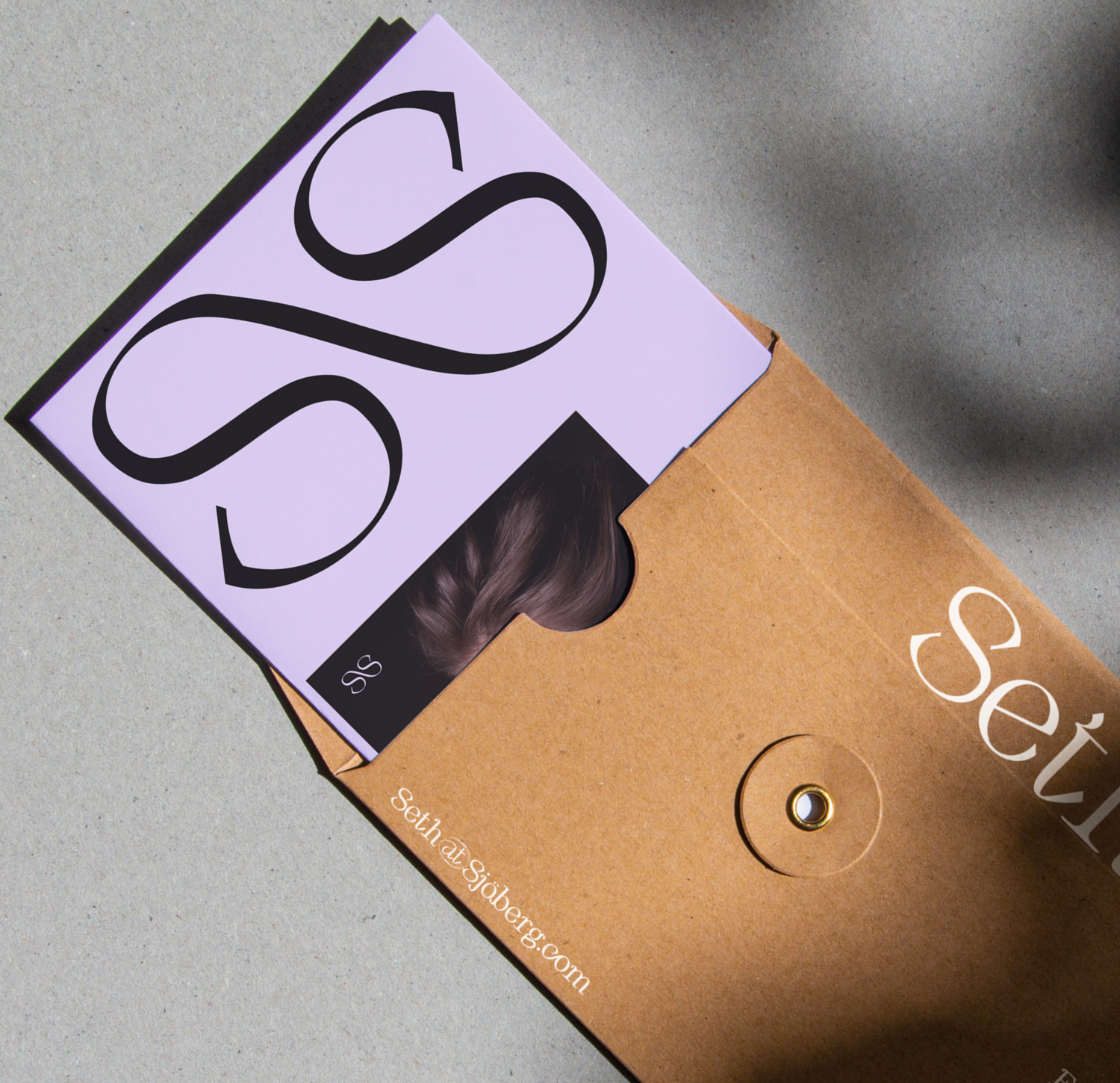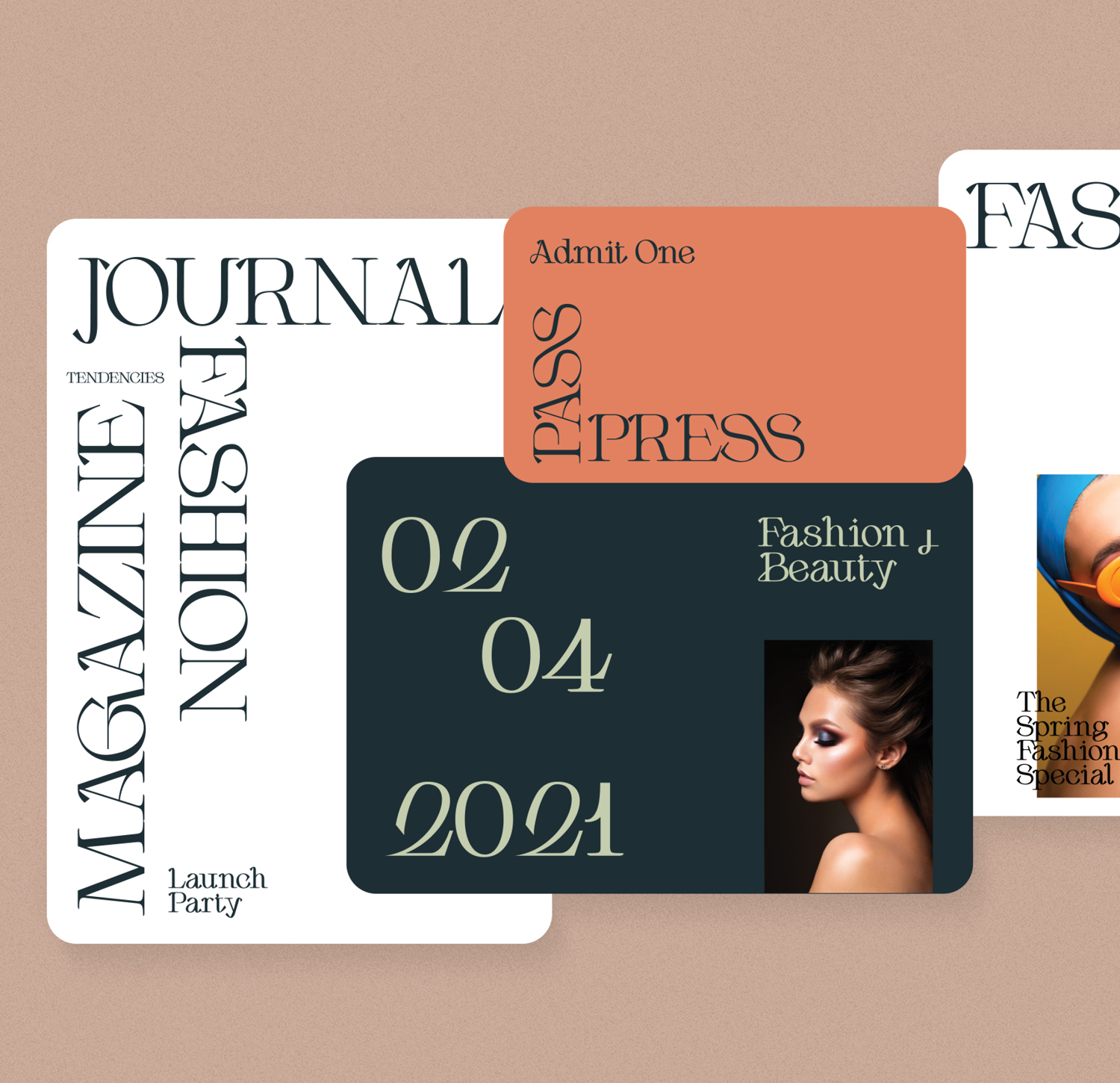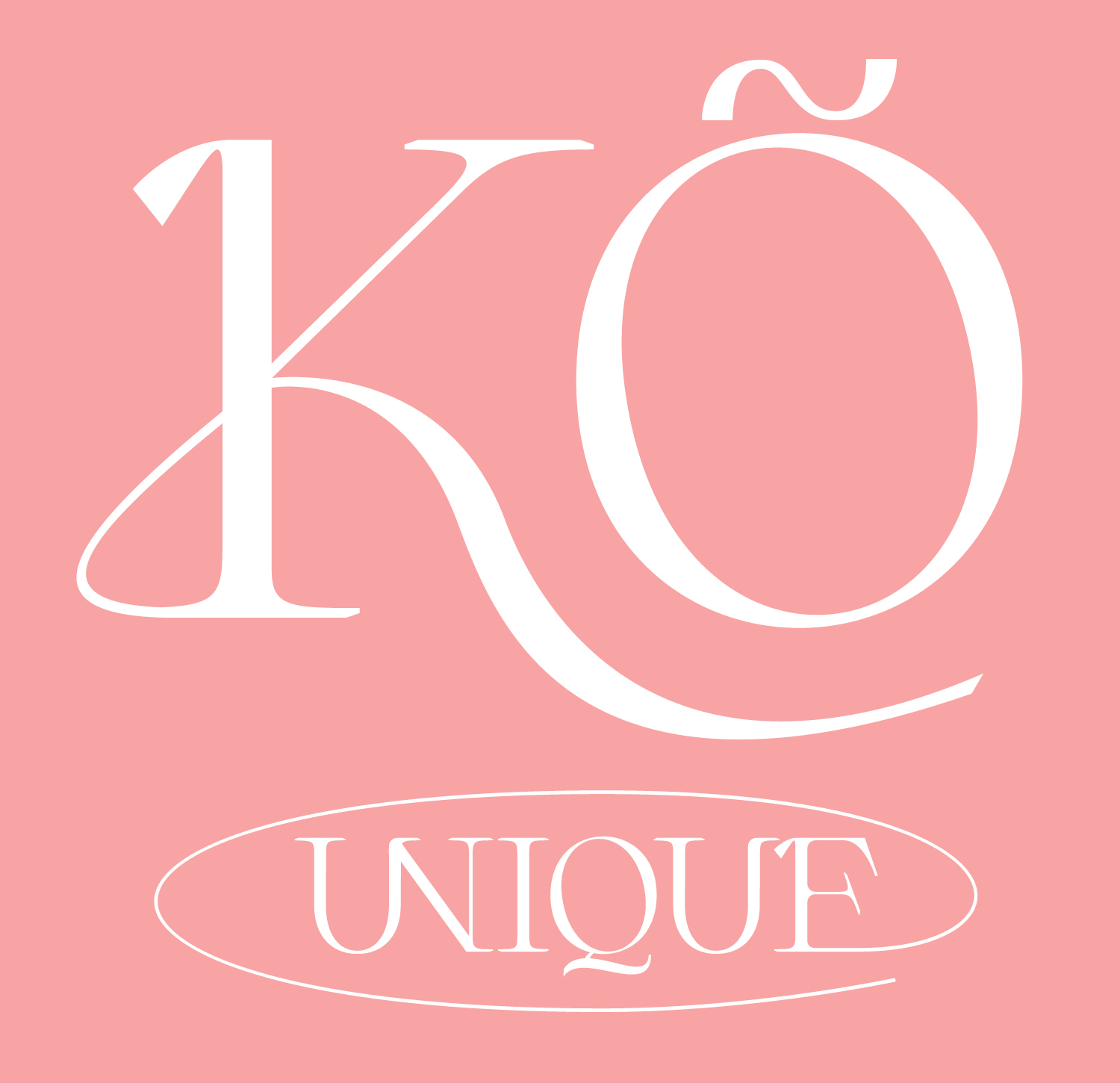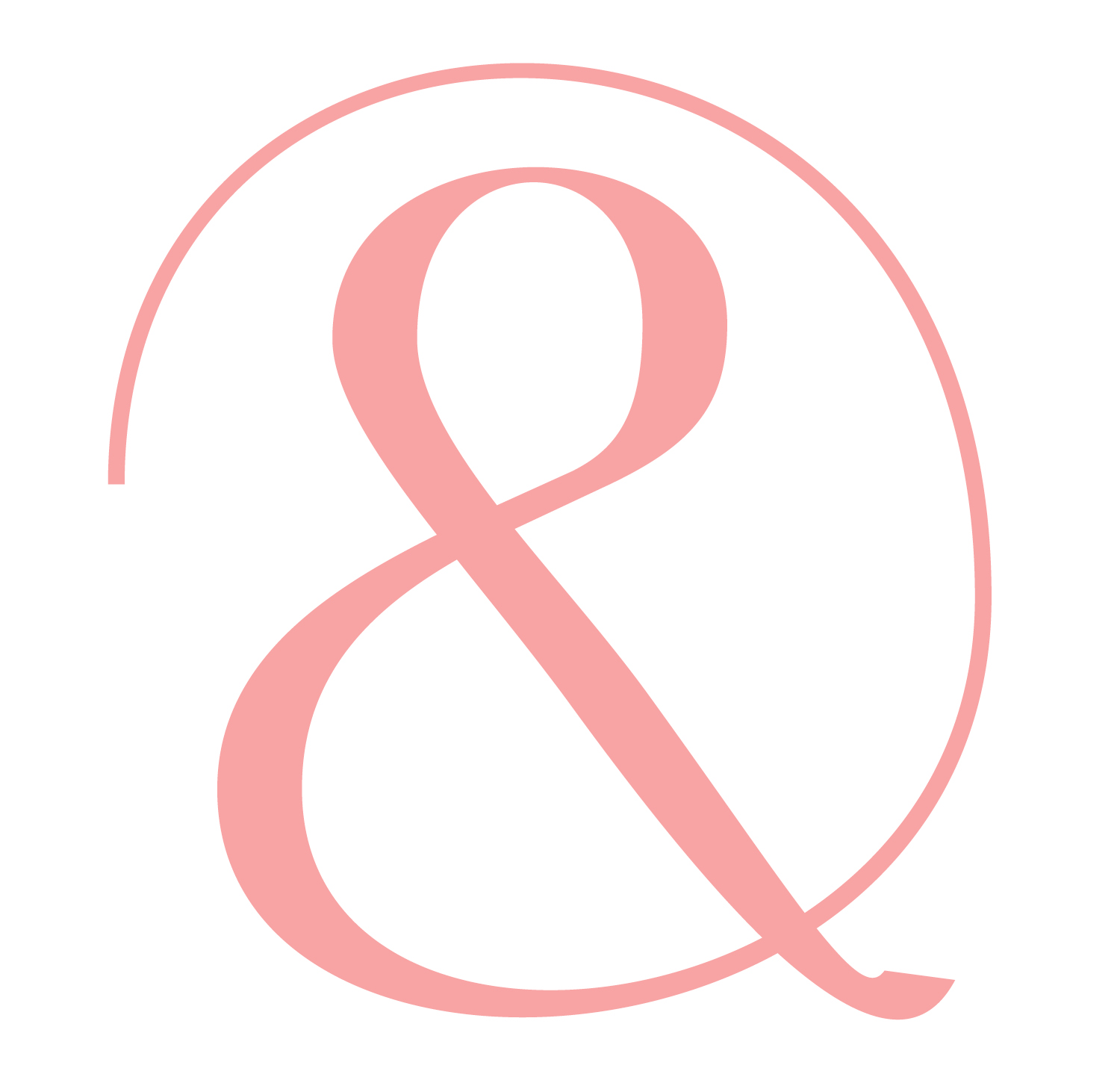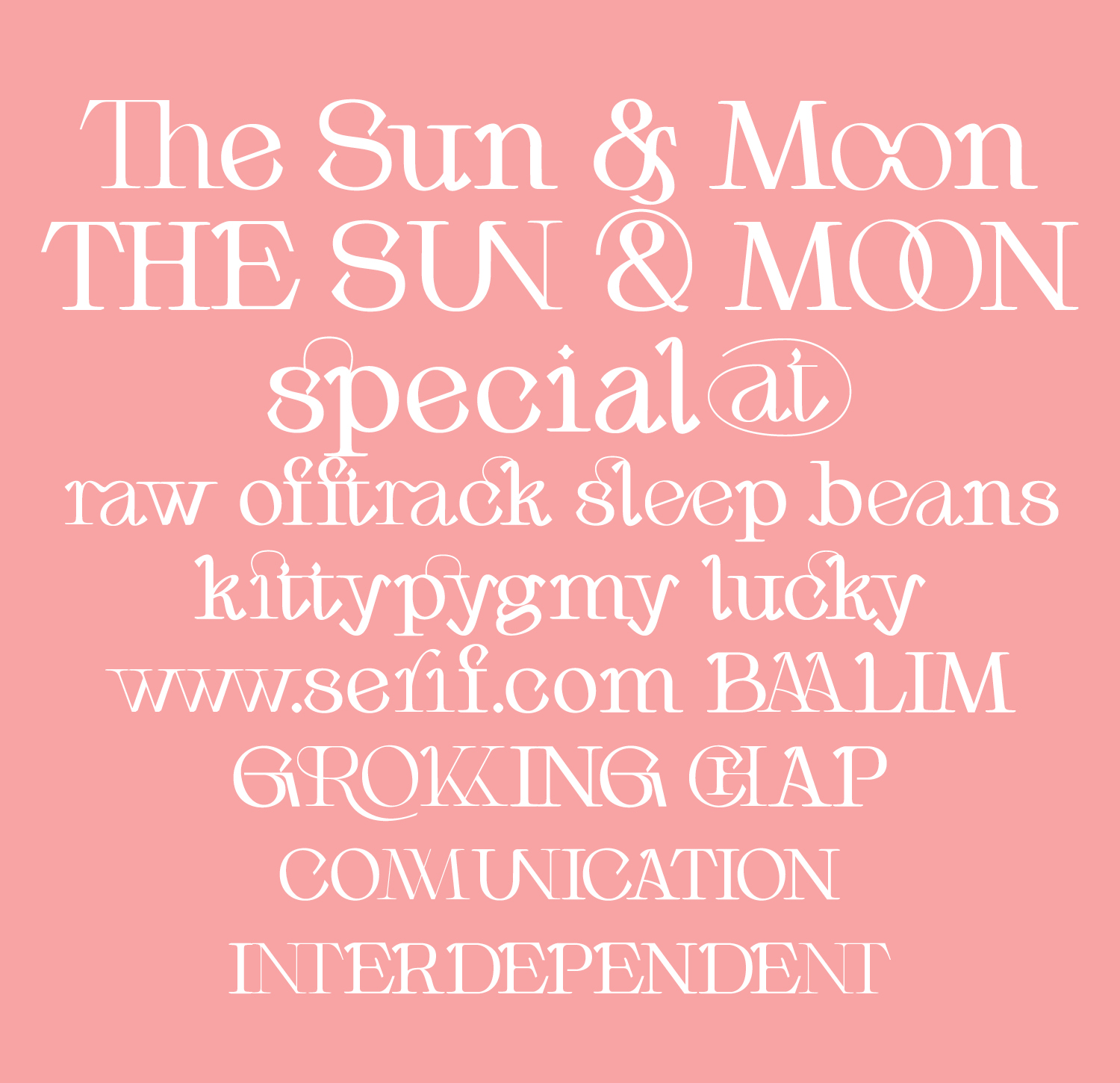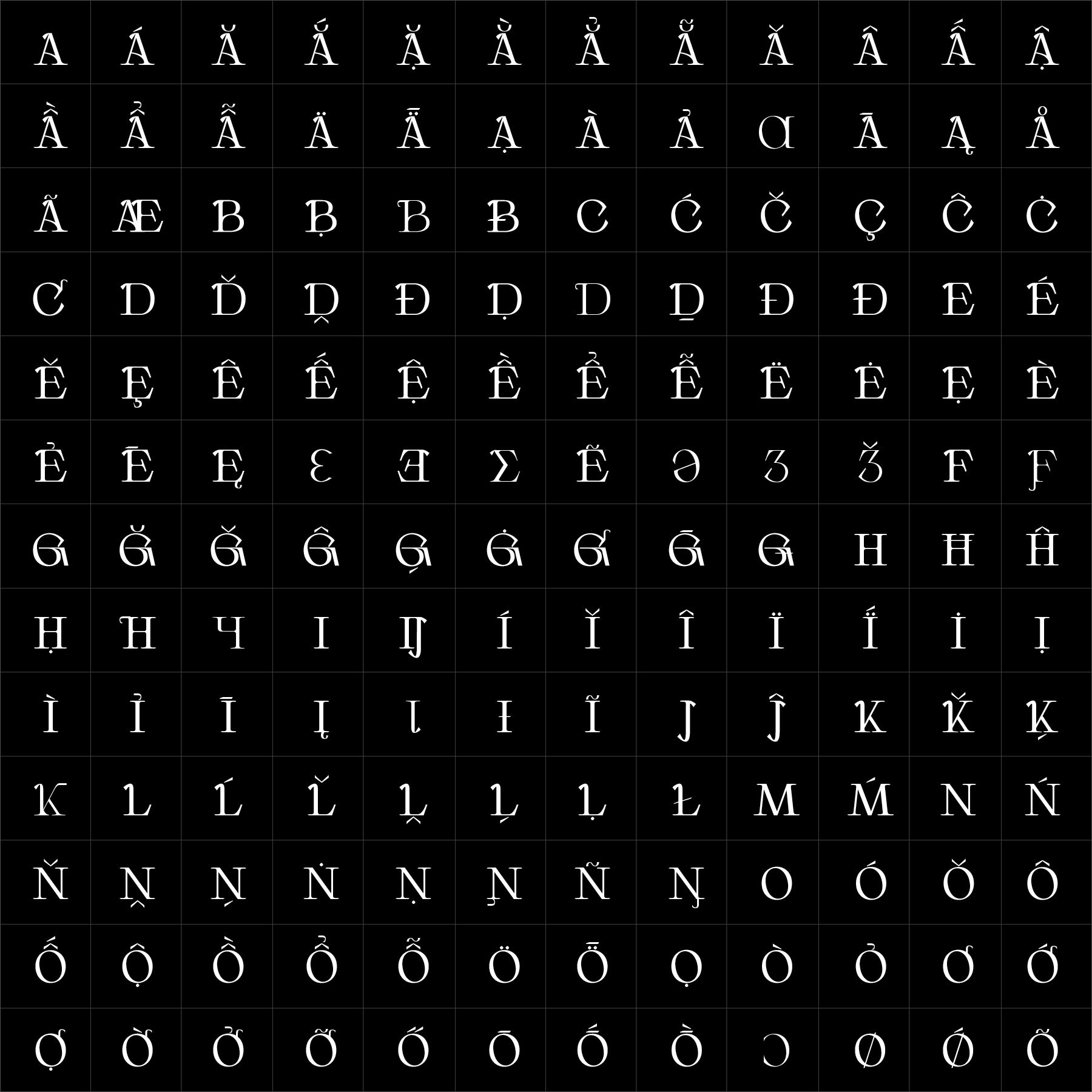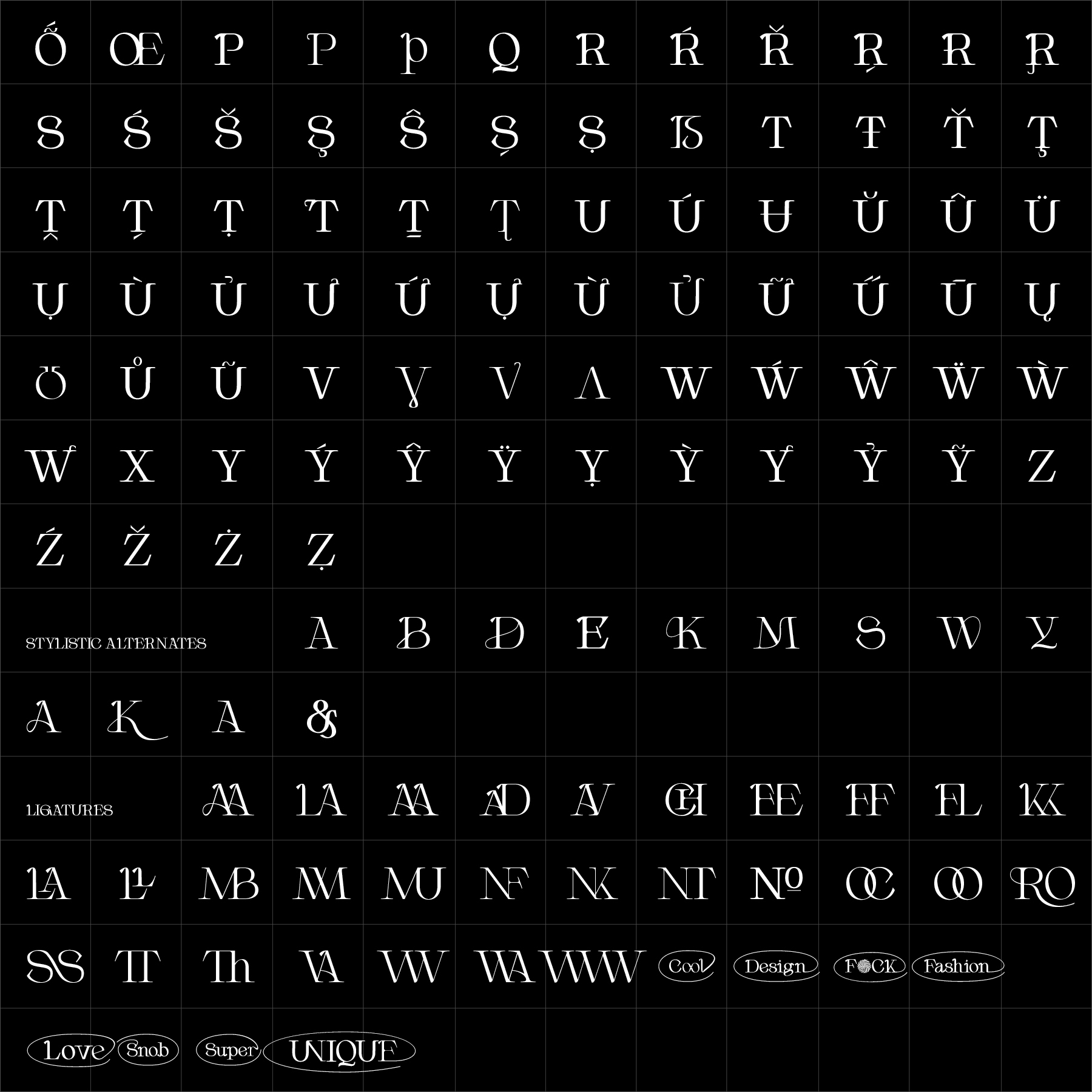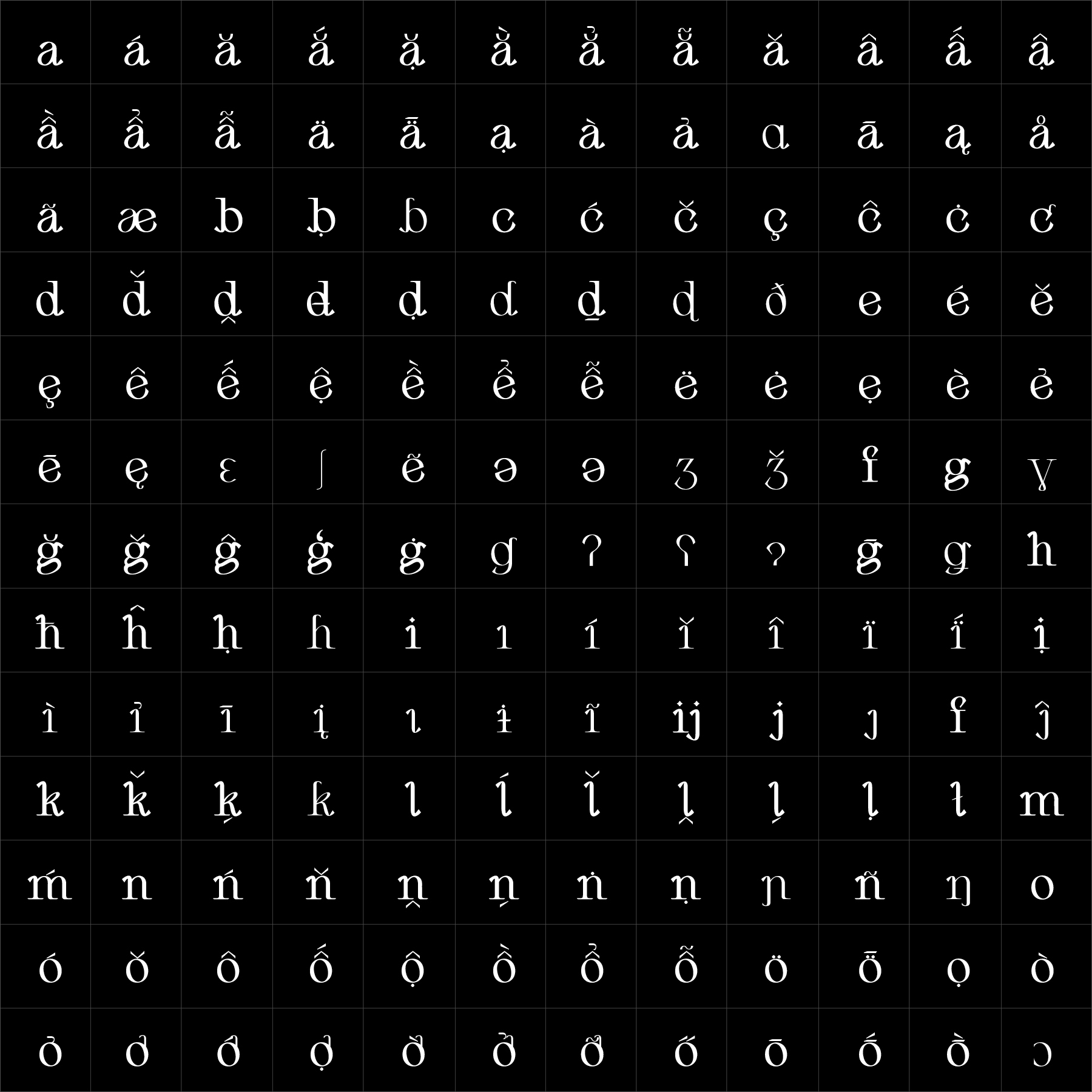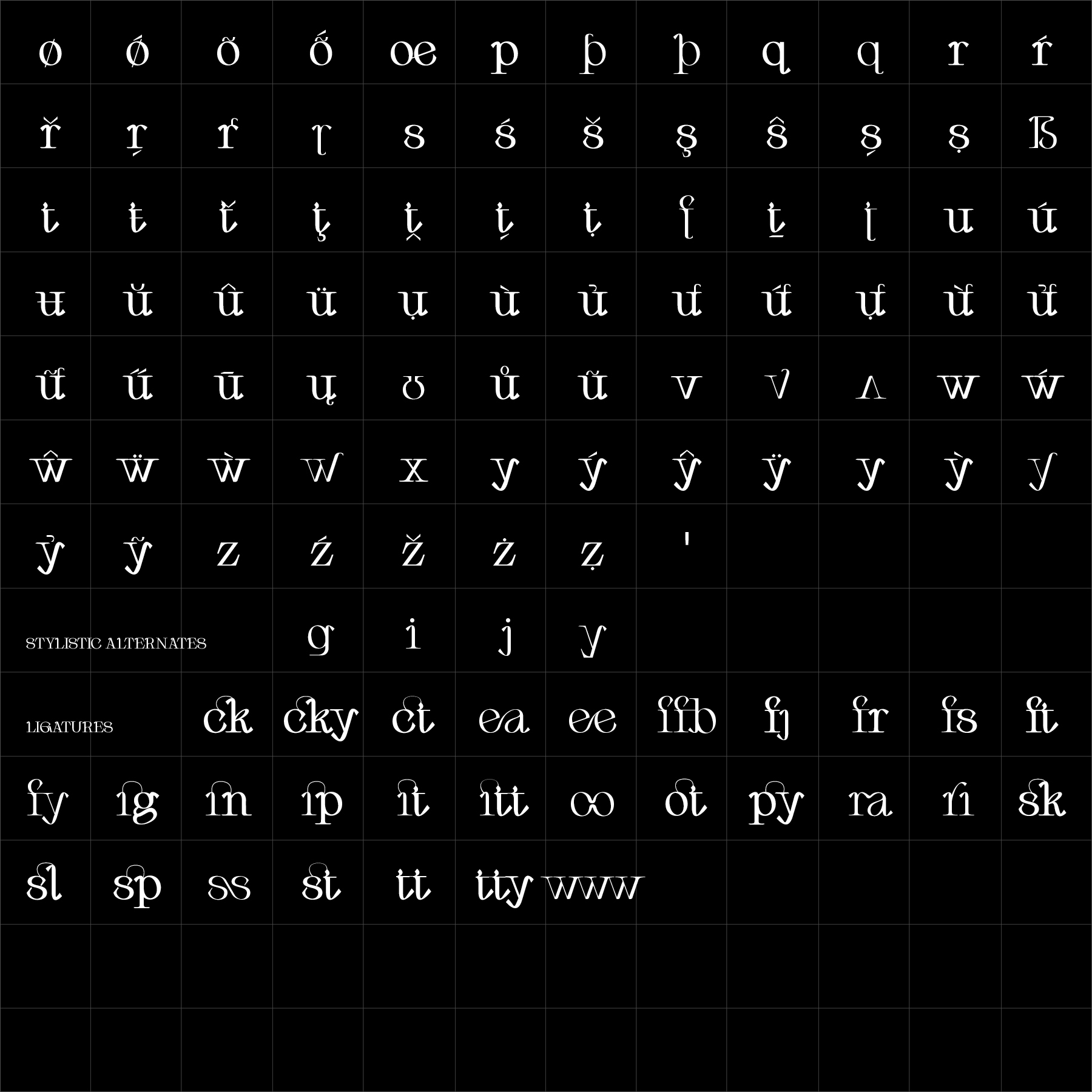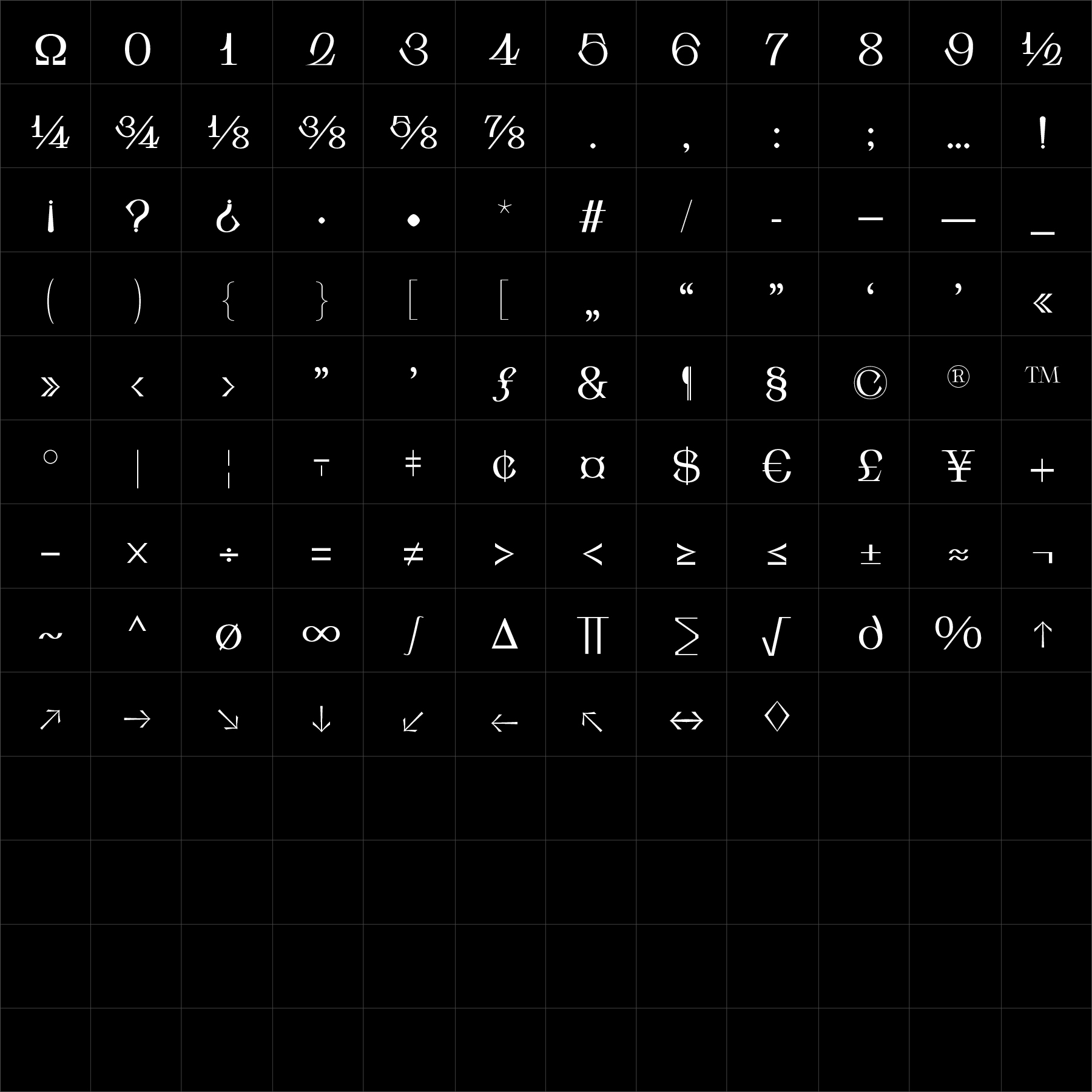
Aupress Serif is a high-contrast display serif that combines elegance with a sharper, more contemporary attitude. Refined hairlines, sculpted curves and decisive vertical strokes give the family a sophisticated presence without allowing it to become delicate or nostalgic.
Designed for typography that must carry both beauty and authority, Aupress Serif brings distinction to editorial covers, cultural identities, packaging and campaigns. Its expressive details reward generous scale, where the tension between precision and personality becomes fully visible.